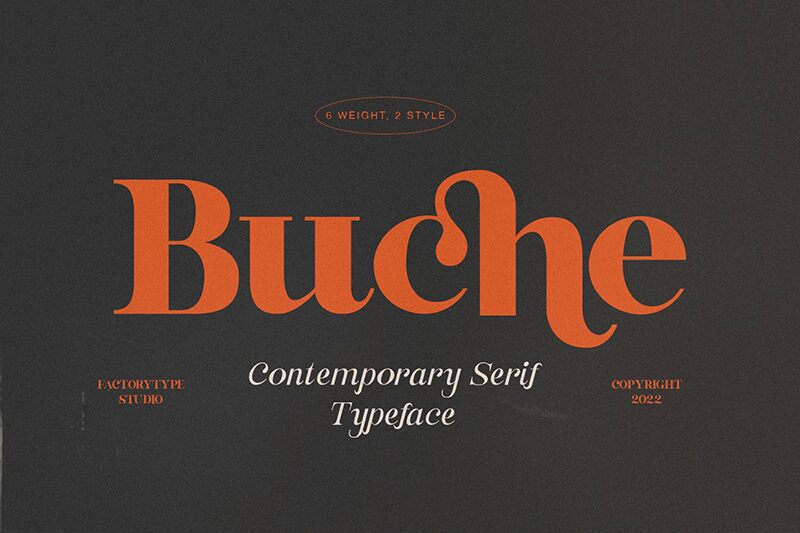
Buche font by FactoryType is a free serif font with a curvy and contemporary style. Its design bears traditional influences while maintaining an eye-catching, classic, and sophisticated overall look. Life into handwritten typography in the modern digital age proceeds to evolve and shift course quickly so, all designers have to covet authentic yet calligraphic fonts like Buche Font.
Buche’s elegant layout will be useful in creating delicate branding designs for flower arrangement stores or treatment spas. You can use this font to create artistic website content for beauty parlors, fashionista blogs, and editorial lifestyle magazines!